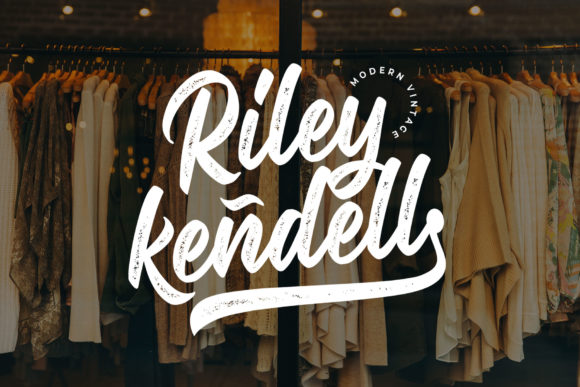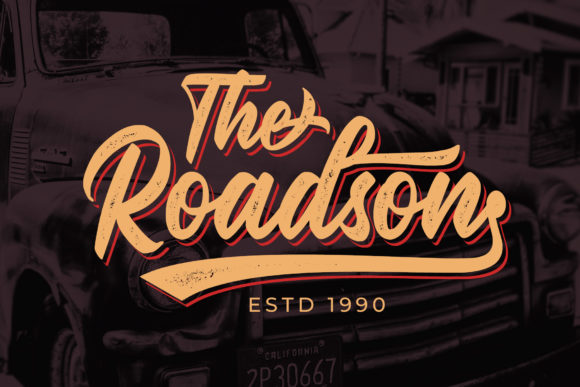
Malinsha Font
db-ku.com - Script & Handwritten -- Malinsha is a unique and flowing handwritten font, featuring a vintage style. It looks beautiful on thank you cards, quotes, greeting cards, logos and much more!